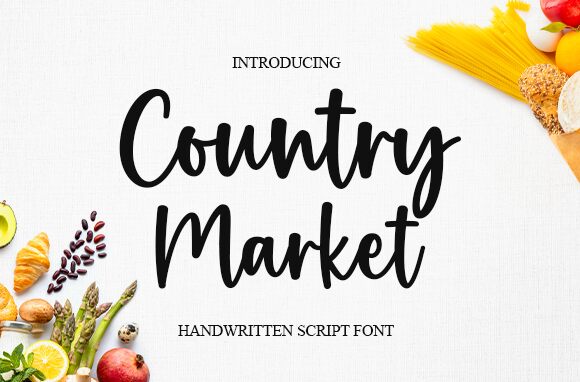
Crafted by the skilled hands at Graphix Line Studio, Country Market is a handwritten font that exudes delicacy and elegance. With its semi-light weight and flowing characters, this font brings a personal touch to your creative projects.
Its well-balanced design ensures legibility while adding an intimate feel, making it an ideal choice for wedding invitations, heartfelt thank you cards, and inspirational quotes. Moreover, its versatility extends to branding elements like logos and business cards, where a touch of human presence is desired.
Embrace the charm of Country Market for designs that require both sophistication and warmth.